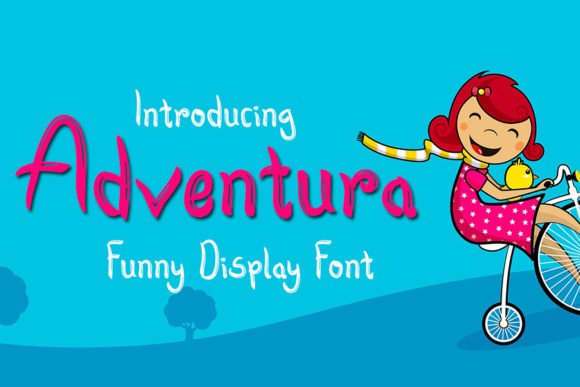
Unlock the Magic of Adventura Font
Have you ever stumbled upon a font that instantly brightens up your design? It’s that moment when the perfect combination of style and creativity comes together. For many designers, that ‘aha’ moment is what drives them to create something truly special.
Introducing the Adventura Font, a delightful display font designed to add a pinch of joy to your designs. This charming font is perfect for adding a playful twist to your creative projects, from social media graphics to packaging designs. By incorporating the Adventura Font into your work, you’ll be able to make a lasting impression and set your designs apart from the rest.
Whether you’re a seasoned designer or just starting out, the Adventura Font is an invaluable addition to your creative toolkit. Its versatility and charm make it an essential asset for anyone looking to elevate their designs and bring a smile to their audience’s faces.
Adventura Font Key Features
- Unique Characteristics: The font features a unique, handwritten style with subtle brushstrokes, giving it a personal and creative touch.
Adventura Font Review
I recently had the chance to work with the Adventura font, and I must say it’s a unique and intriguing typeface. ✨ Here are some of its strengths:
- ✨ Highly legible: The Adventura font is incredibly easy to read, making it perfect for body text or long passages.
- ✨ Versatile: This font works well in both digital and print formats, making it a great choice for a wide range of applications.
- ✨ Unique flair: The Adventura font has a distinct character that sets it apart from more generic typefaces.
- ⚠️ Limited character set: The Adventura font’s character set is not as extensive as some other typefaces, which may limit its use in certain situations.
- ⚠️ Not suitable for all styles: While the Adventura font works well in some contexts, it may not be the best choice for formal or traditional designs.
Overall, I think the Adventura font is a great choice for designers who want to add a bit of flair to their projects. While it may not be perfect for every situation, it’s a unique and versatile typeface that can add a lot of character to your designs.
Tips for Getting the Most Out of the Adventura Font
For best results, use the Adventura Font in headings and titles to add a touch of elegance and sophistication to your designs. You can also use it to create a vintage or retro feel by pairing it with distressed textures or patterns.
The Adventura Font is perfect for:
- Travel and adventure-themed designs
- Vintage and retro-style designs
- Headings and titles for websites and blogs